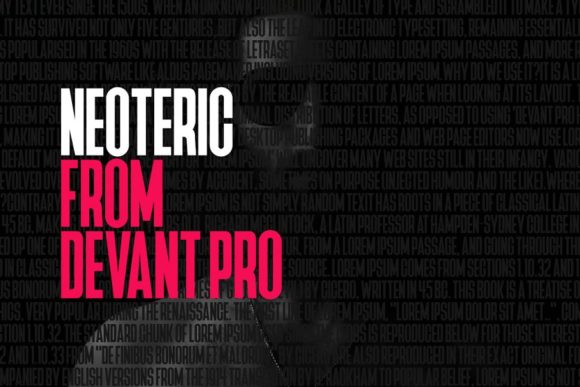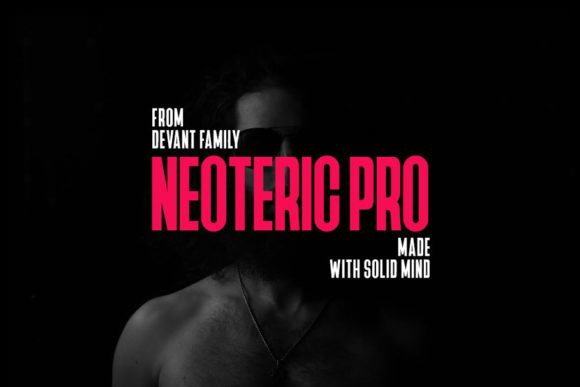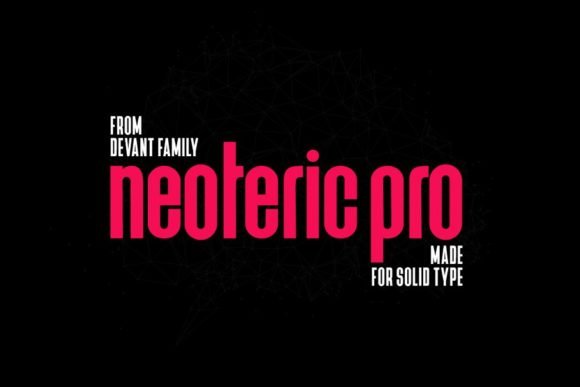
Introduction to Neoteric Pro Font
Neoteric Pro is a minimal and simple sans serif font.
It can be matched to a large set of projects, so add it to your creative ideas and notice how it makes them stand out .